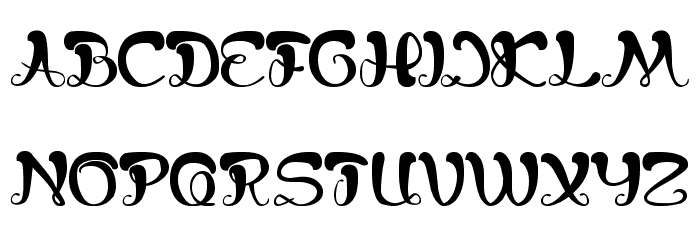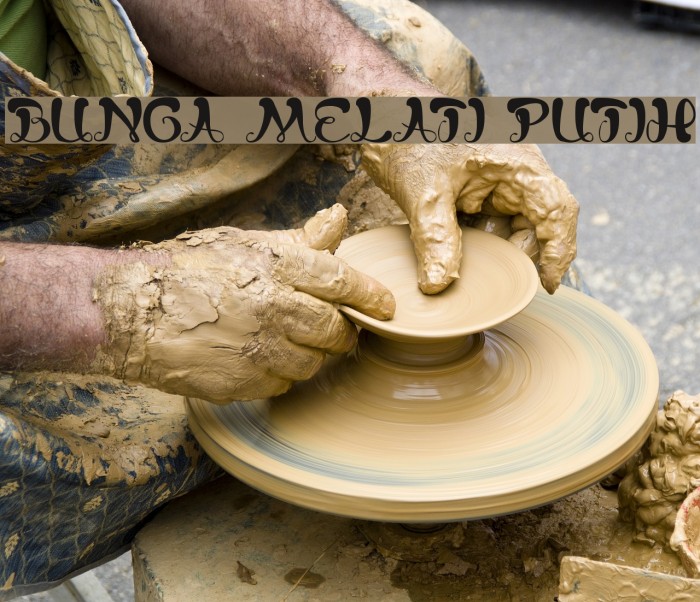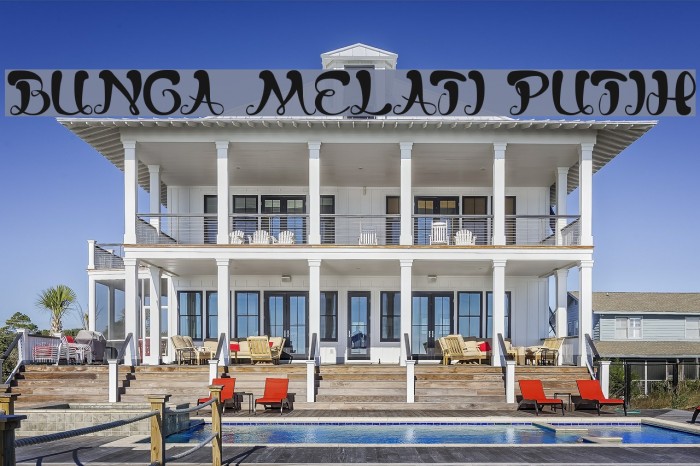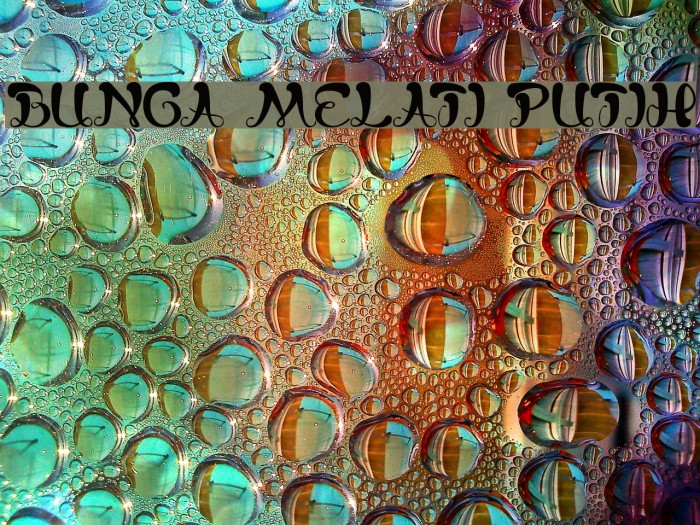
bunga melati putih Font
This font features an elegant and decorative style with intricate swirls and flourishes that extend from each character, giving it a sophisticated and artistic appearance. The uppercase letters are particularly ornate, with loops and curves that add a sense of movement and fluidity. The font maintains a consistent thickness throughout, providing a balanced and harmonious look. The characters are well-spaced, ensuring readability despite the elaborate design. This font is ideal for projects that require a touch of elegance and creativity, such as invitations, branding, or decorative headings.
An elegant and decorative font with intricate swirls and flourishes.
- Proposed Projects: Ideal for wedding invitations, branding, decorative headings, and artistic projects.
- Use Case: Headlines, Logos, Invitations